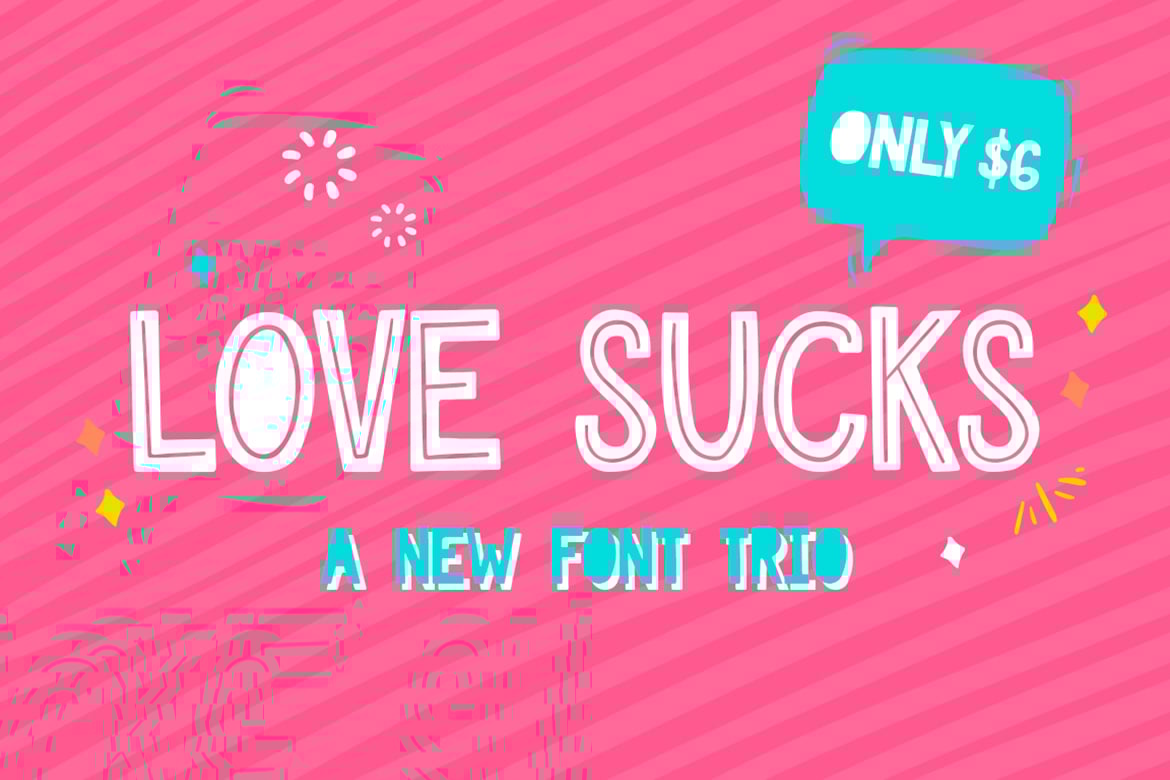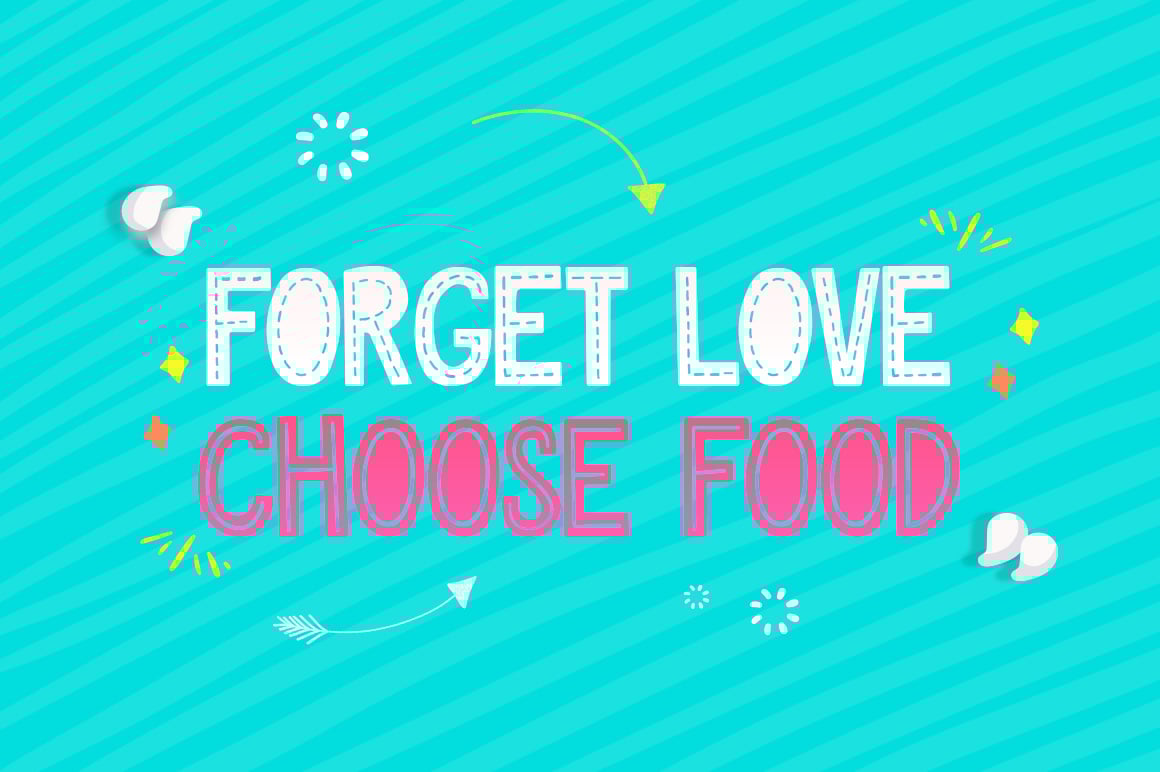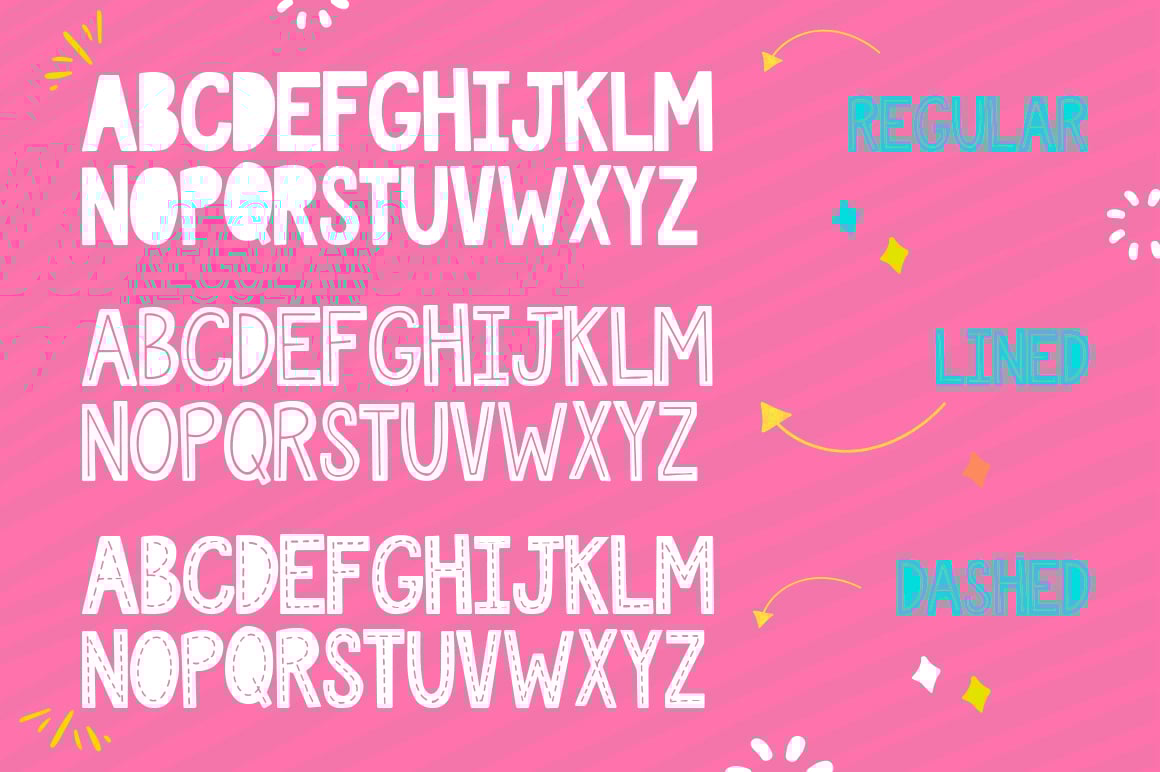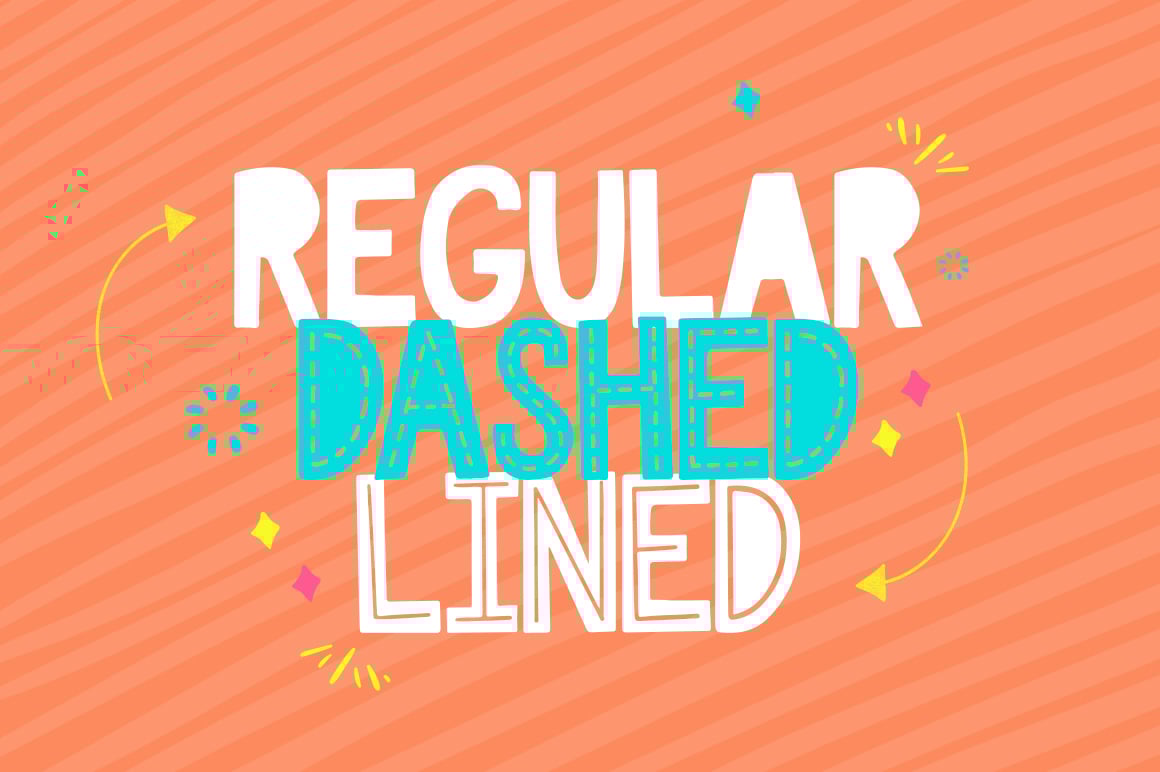
Love Sucks Font Trio
Introducing our brand new font trio, love sucks! Combine the regular, lined and dashed characters to create uniquely modern designs. Fantastic for logos, posters and so much more. Grab your copy today for ONLY $6